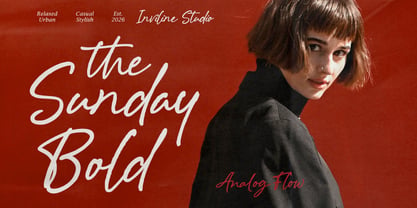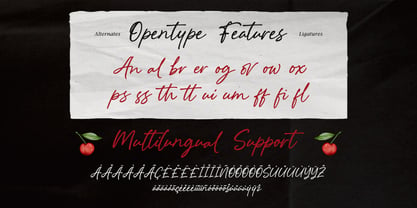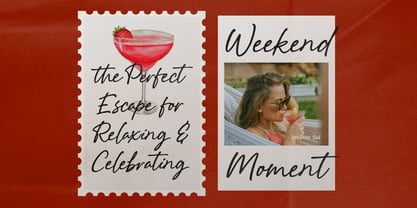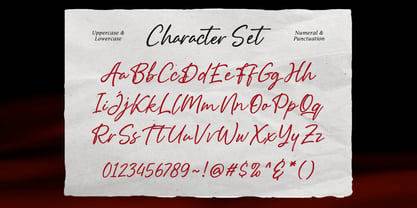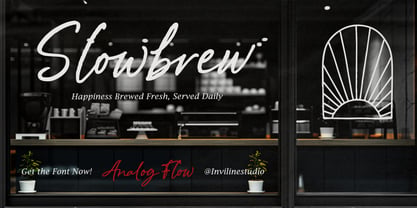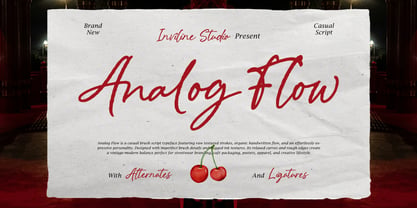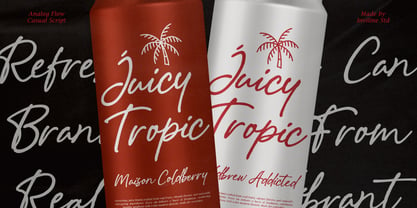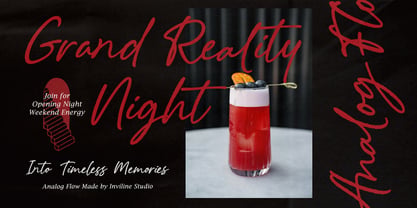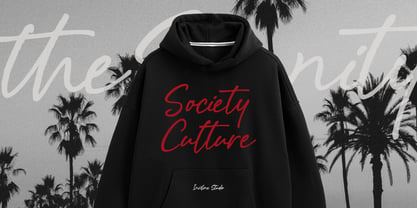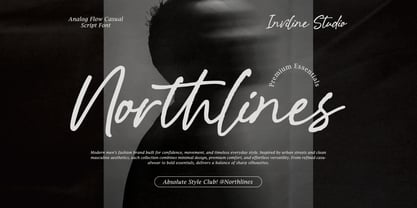
Analog Flow
Analog Flow is a casual brush script typeface that embodies the raw, unpolished energy of the modern urban landscape. Designed by Inviline Studio, it features rugged ink textures and an effortlessly expressive flow that perfectly captures the "Imperfectionist Hand" design trend. This typeface was crafted to provide a vintage-modern balance, making it an essential tool for streetwear branding, vibrant beverage packaging, and bold editorial posters. It includes a comprehensive set of alternates and ligatures to ensure your typography never looks overly digital, maintaining the authentic rhythm of a hand-painted sign.